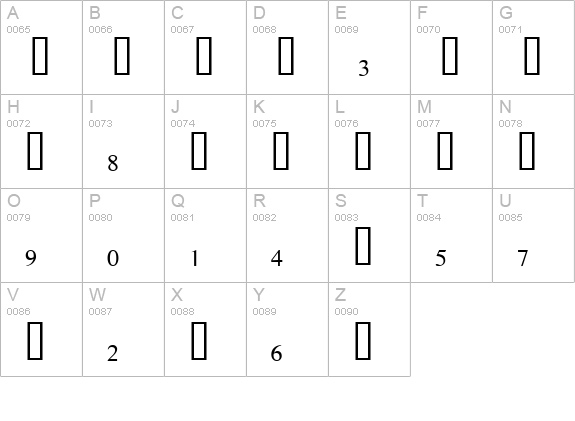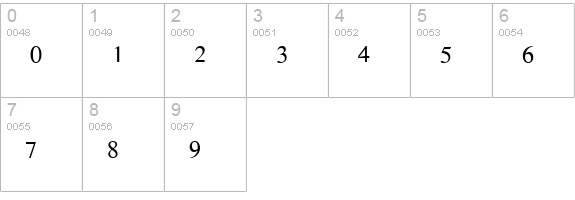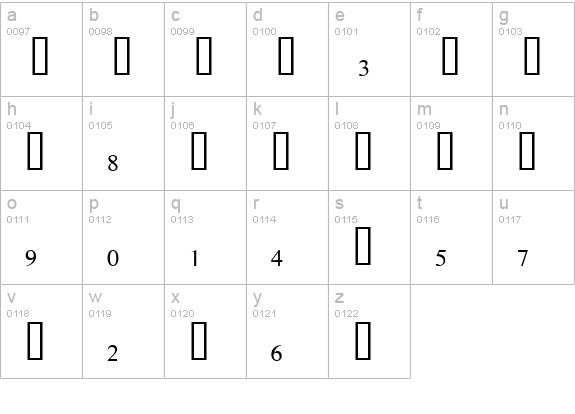
Lauderdale Fractions Font Details
Lauderdale Fractions is a stunning font that effortlessly combines elegance and versatility. Designed with meticulous attention to detail, this font is perfect for adding a touch of sophistication to any project. With its clean lines and beautifully crafted fractions, Lauderdale Fractions is a must-have for designers, typographers, and creatives alike. Its unique and timeless design ensures that it will never go out of style, making it a valuable addition to any font collection. What sets Lauderdale Fractions apart is not only its exceptional design but also the fact that it is available for free. Yes, you read that right – this remarkable font can be downloaded for free at FontsMarket.com. This makes it accessible to everyone, regardless of budget constraints. Whether you're working on a professional project or simply looking to enhance your personal creations, Lauderdale Fractions is the ideal choice. Its versatility allows it to be used in a wide range of applications, from elegant wedding invitations to eye-catching logos. So, why wait? Take advantage of this incredible opportunity and download Lauderdale Fractions today. Join the countless designers who have already discovered the beauty and versatility of this font. Create stunning visuals that leave a lasting impression with the help of Lauderdale Fractions – the free font that is as captivating as it is accessible.